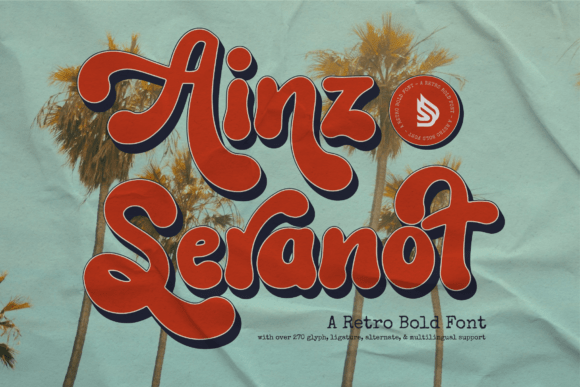
Bring Back the Bold, Groovy Vibes of the Past with Ainz Seranot Font
In the world of typography, few fonts manage to capture the essence of a bygone era while still feeling fresh and modern. Ainz Seranot is one such font that successfully blends vintage charm with contemporary versatility. This stunning retro font is making waves in the design community for its unique ability to evoke nostalgia while maintaining a trendy appeal. If you’re looking to add a bold, groovy touch to your projects, Ainz Seranot is the perfect choice.
What Makes Ainz Seranot Stand Out?
Ainz Seranot is not just another font; it’s a design statement. Its smooth, curvy letterforms and thick strokes are instantly reminiscent of the classic typography from the 70s and 80s. However, what sets it apart is its modern versatility. The font comes with a range of features that make it suitable for various design applications, from branding and posters to packaging and social media graphics.
- Smooth, Curvy Letterforms: The font’s rounded edges and flowing curves give it a friendly and approachable feel, making it perfect for designs that require a softer touch.
- Thick Strokes: The bold strokes of Ainz Seranot ensure that your text stands out, whether it’s used in a headline or a body of text.
- Stylish Swashes: Add a touch of elegance to your designs with the font’s stylish swashes, perfect for titles, headings, and emphasis.
A Wealth of Glyphs, Ligatures, and Multilingual Support
Ainz Seranot offers more than just visually appealing letterforms. With over 270 glyphs, this font is incredibly versatile. It includes:
- Ligatures: Automatically replace sequences of letters with a single glyph for a more fluid and natural look.
- Alternates: Multiple versions of letters and numbers allow for varied typography, ensuring your designs never look monotonous.
- Multilingual Support: Cater to a global audience with a font that supports multiple languages, making it ideal for international brands and projects.
This extensive character set means you can use Ainz Seranot for a wide range of projects, from English language content to multilingual communications, all while maintaining a consistent and professional look.
Perfect for Various Design Applications
The versatility of Ainz Seranot makes it suitable for numerous design applications. Here are some of the best ways to use this stunning retro font:
Branding
Establish a strong brand identity with Ainz Seranot. Its bold and curvy design makes it perfect for logos, especially for brands that want to evoke a sense of nostalgia or fun.
Posters and Flyers
Grab attention with eye-catching posters and flyers. Ainz Seranot’s thick strokes and stylish swashes ensure your message stands out.
Packaging
Make your product packaging pop with Ainz Seranot. The font’s retro vibe is perfect for product labels, packaging inserts, and promotional materials.
Social Media Graphics
Elevate your social media presence with engaging graphics. Ainz Seranot can add a nostalgic yet trendy touch to your posts, stories, and banners.
Why Choose Ainz Seranot?
In a sea of fonts, Ainz Seranot stands out for several reasons:
- Unique Retro Aesthetic: While many fonts try to capture the retro vibe, Ainz Seranot does it with a unique twist that feels both vintage and modern.
- High Versatility: With its extensive glyph set, ligatures, and alternates, Ainz Seranot can be used in a multitude of design contexts.
- Easy to Read: Despite its bold strokes, Ainz Seranot remains highly legible, making it suitable for both headings and body text.
Whether you’re a designer looking for a standout font or a business owner aiming to create a memorable brand identity, Ainz Seranot offers the best of both worlds.
Ainz Seranot is more than just a font; it’s a design experience. By blending the bold, groovy vibes of the past with modern versatility, this stunning retro font is perfect for anyone looking to add a nostalgic yet trendy touch to their designs. With its smooth letterforms, thick strokes, stylish swashes, and extensive character set, Ainz Seranot is your go-to typeface for creating striking, retro-inspired designs. So why wait? Bring back the bold, groovy vibes of the past with Ainz Seranot and elevate your design game to new heights.